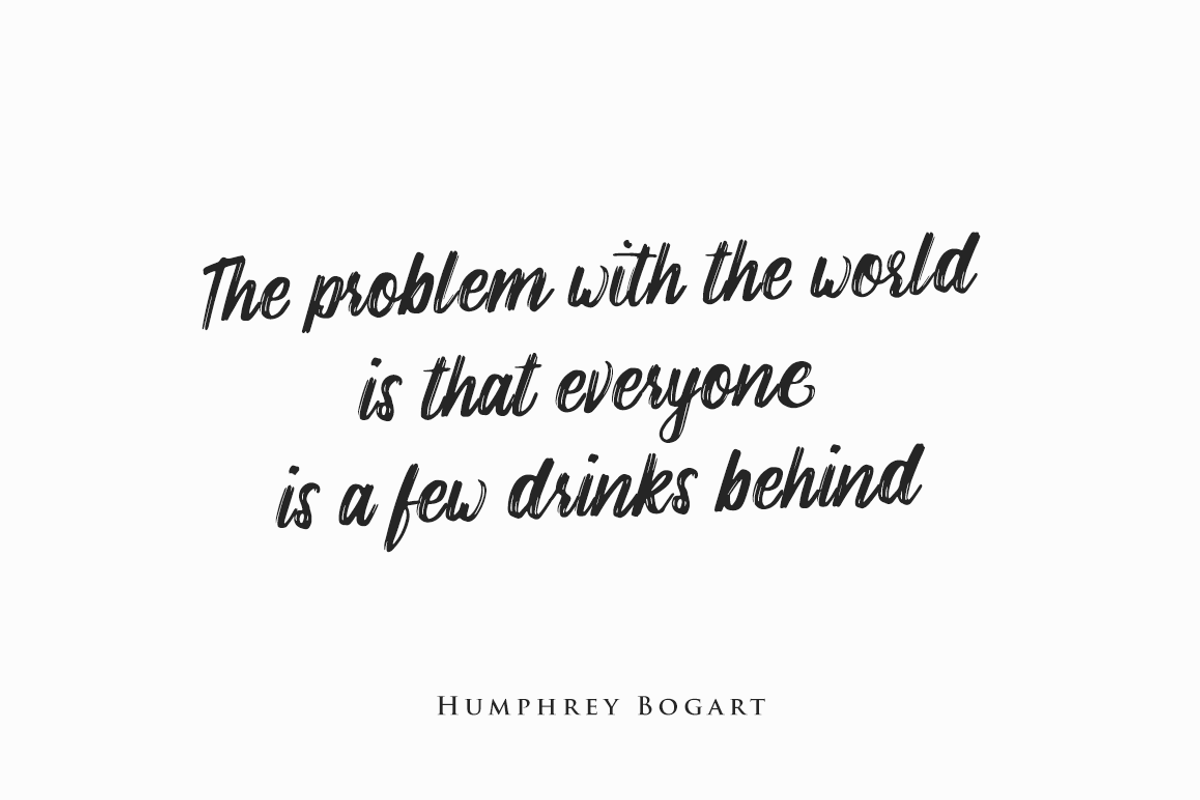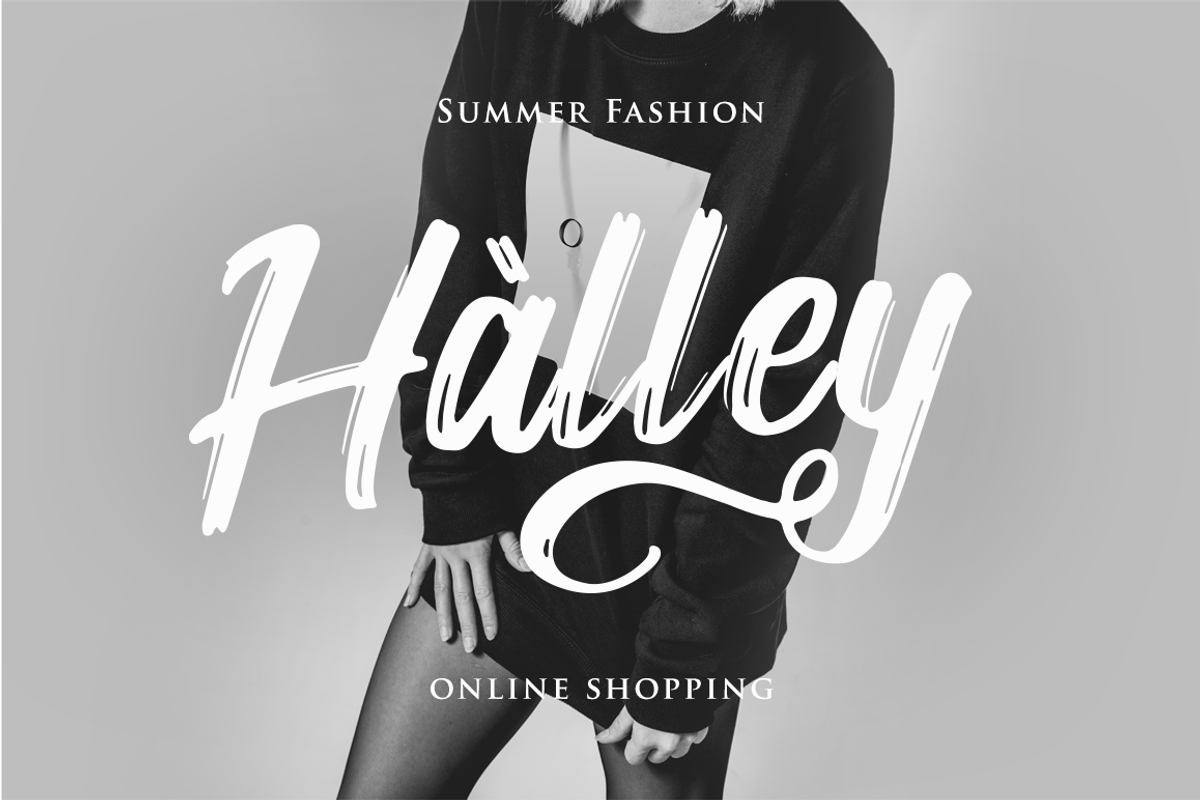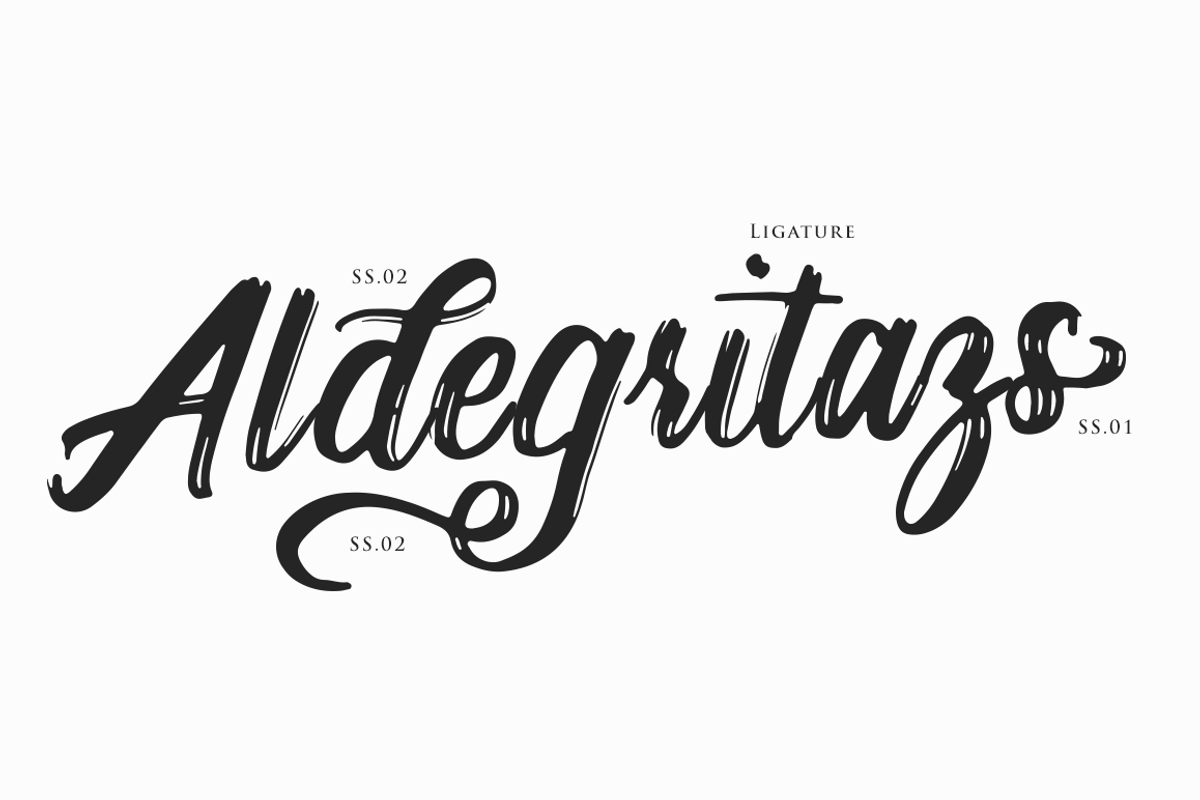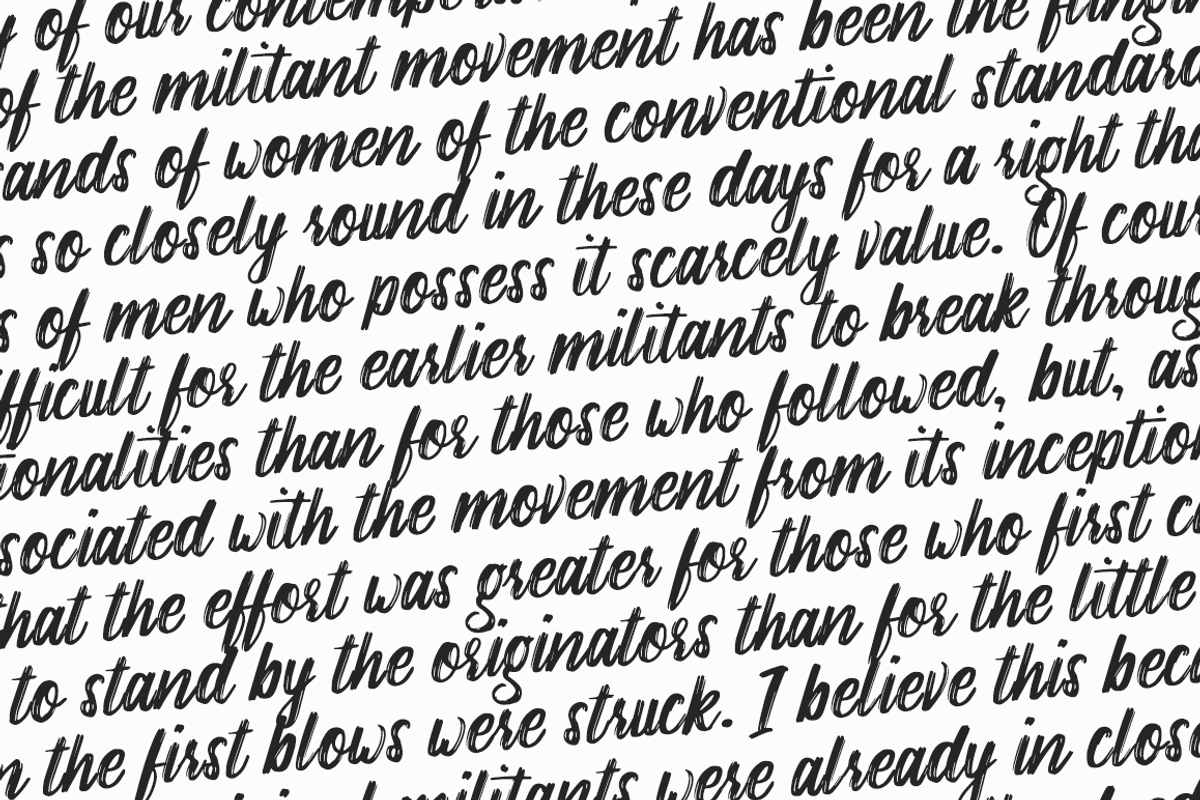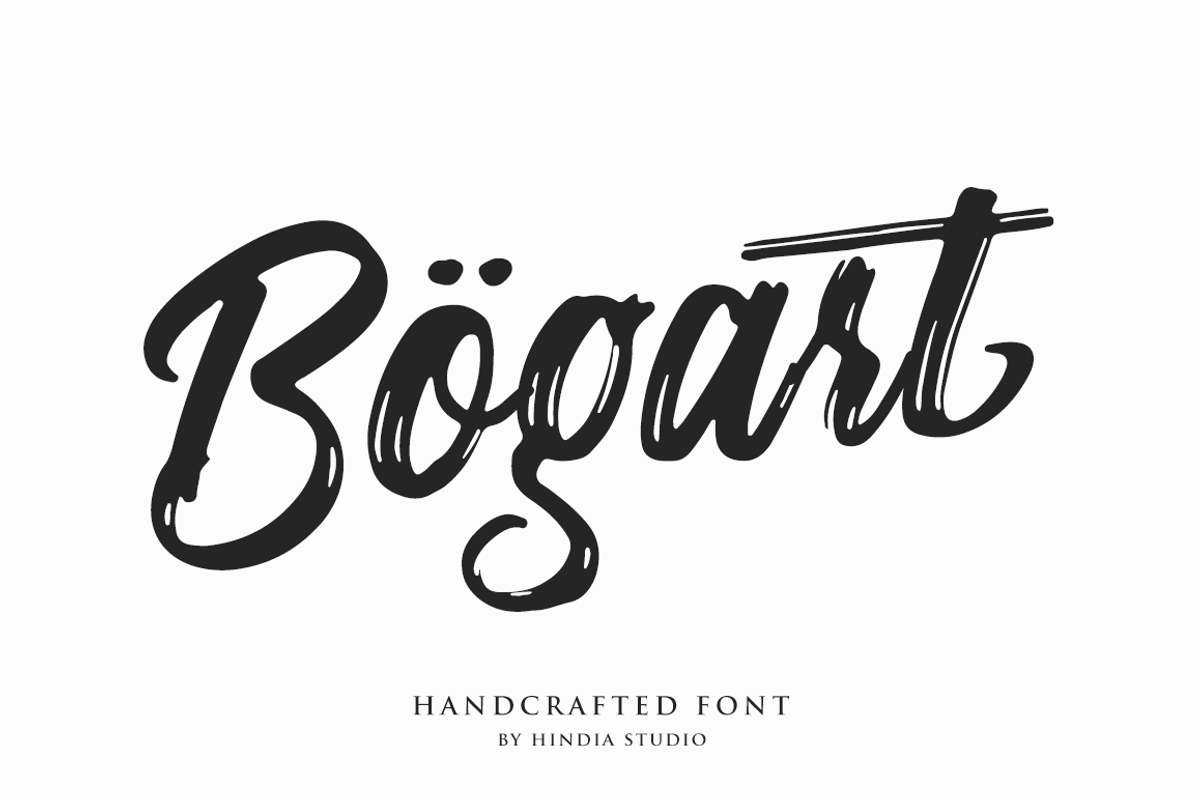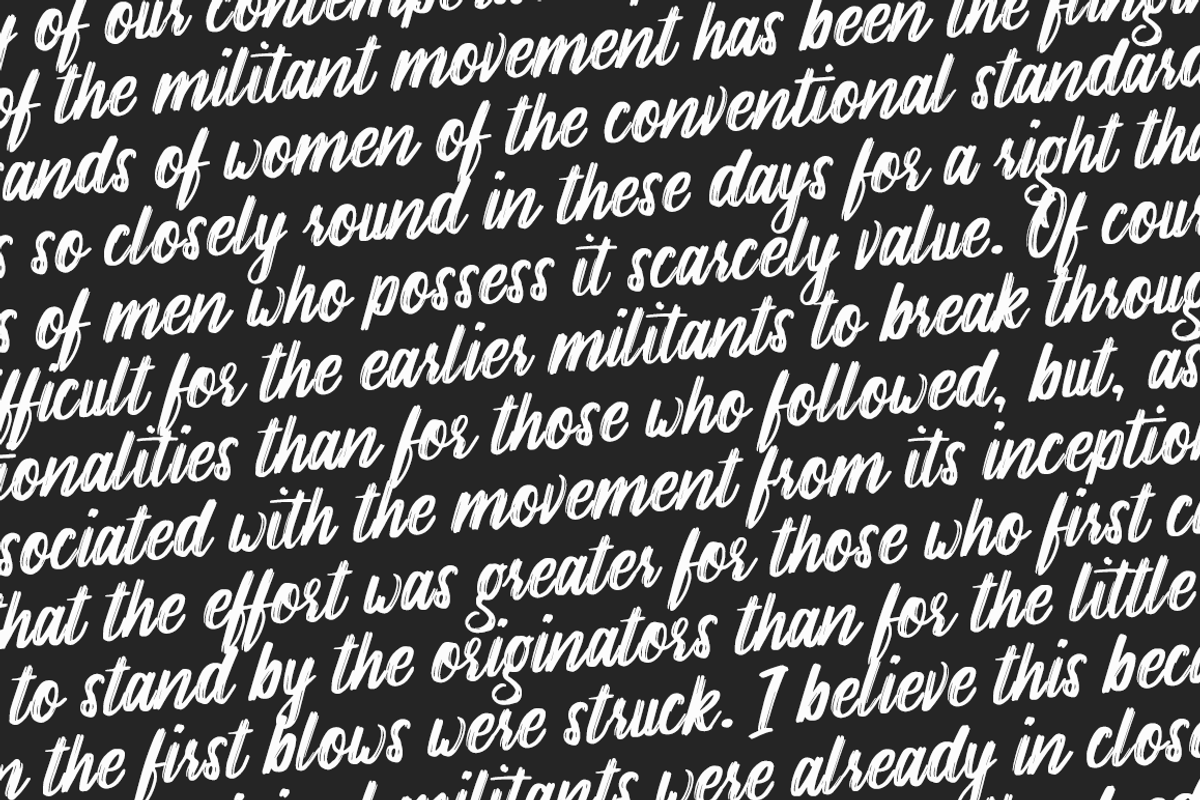
Bogart Script
BOGART SCRIPT | A natural hand-lettered font
It’s casual, free-flowing and fresh, based on real brush. A nice cursive handwriting with a rough edgy touch for your projects. All letters have been crafted and arranged carefully. Bogart script can be used for fashion, apparel, stationery, magazines, film, books, marketing, etc.
- Stylistic alternates 01 : a-z
- Stylistic alternates 02 : b,d,f,g,h,j,k,t,y